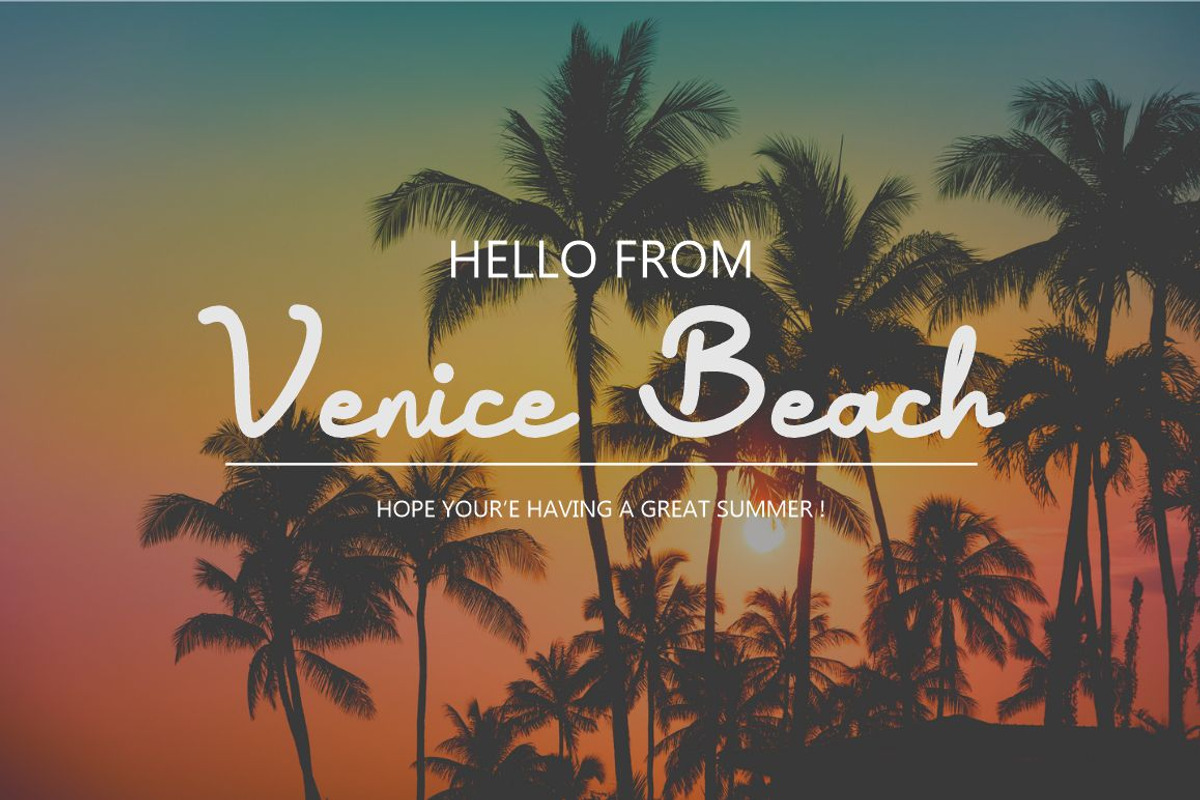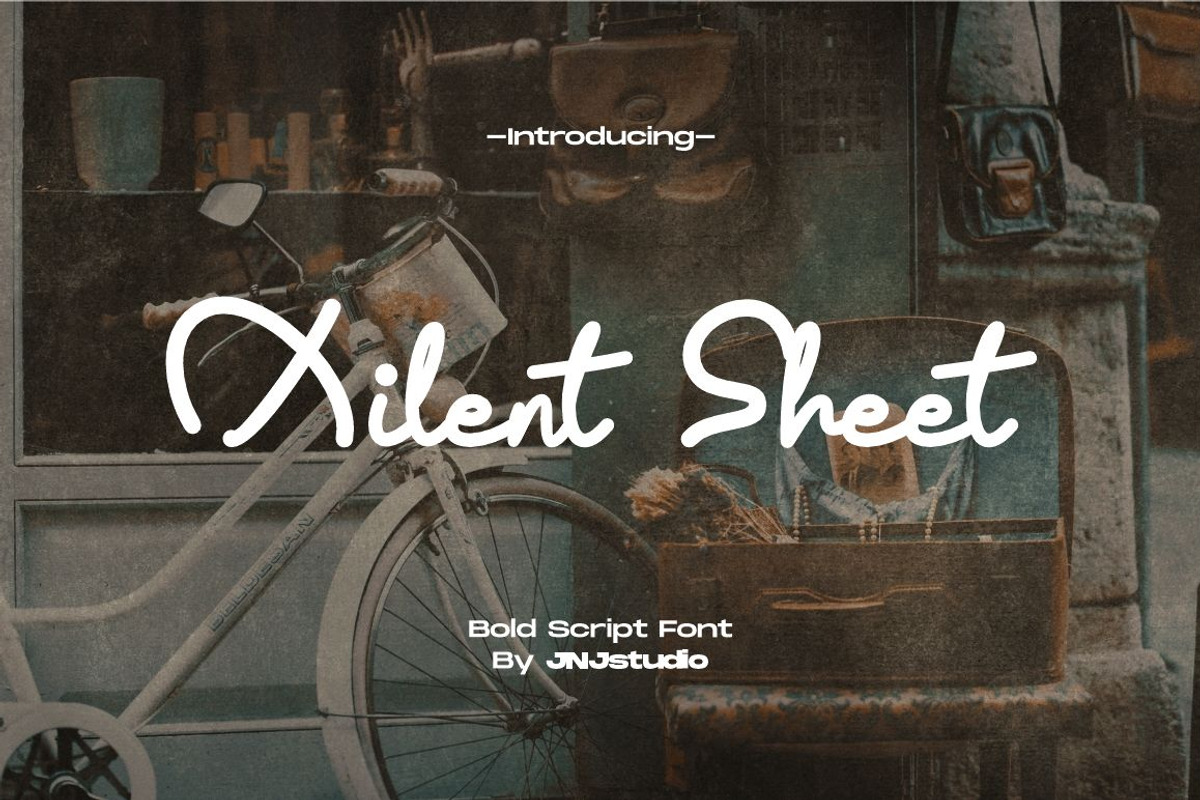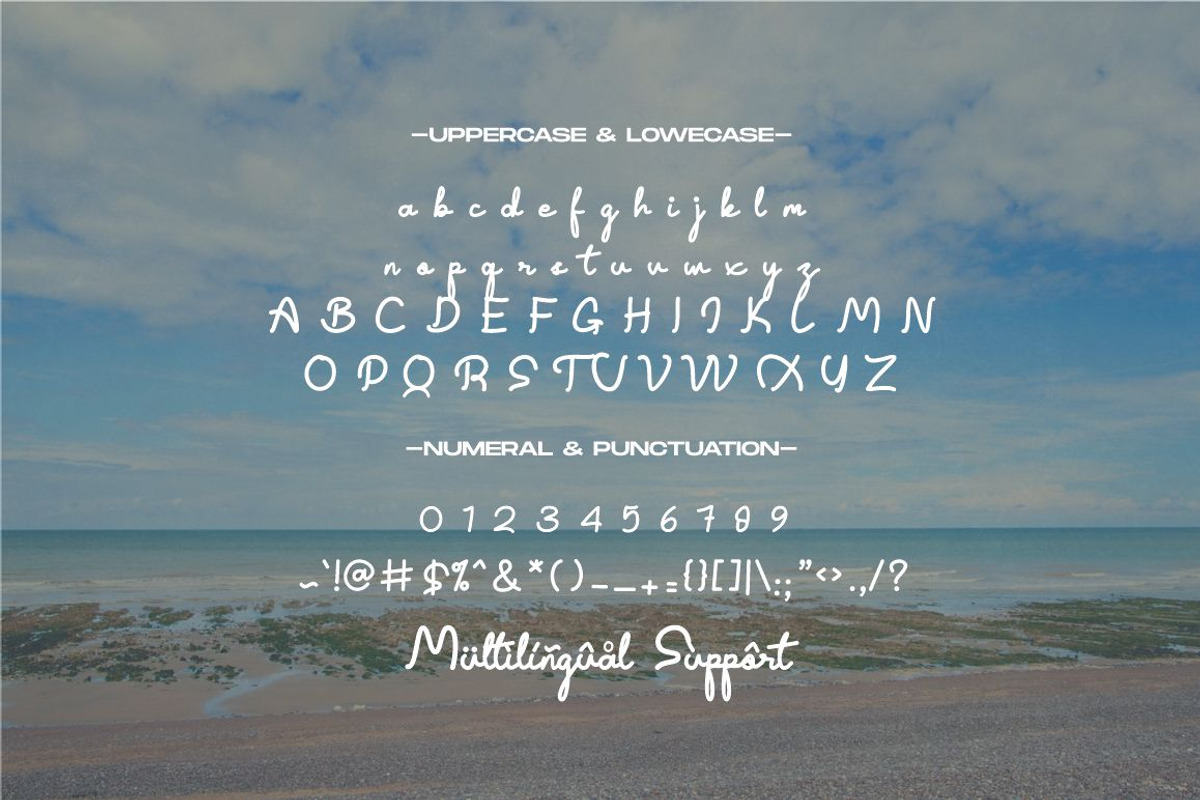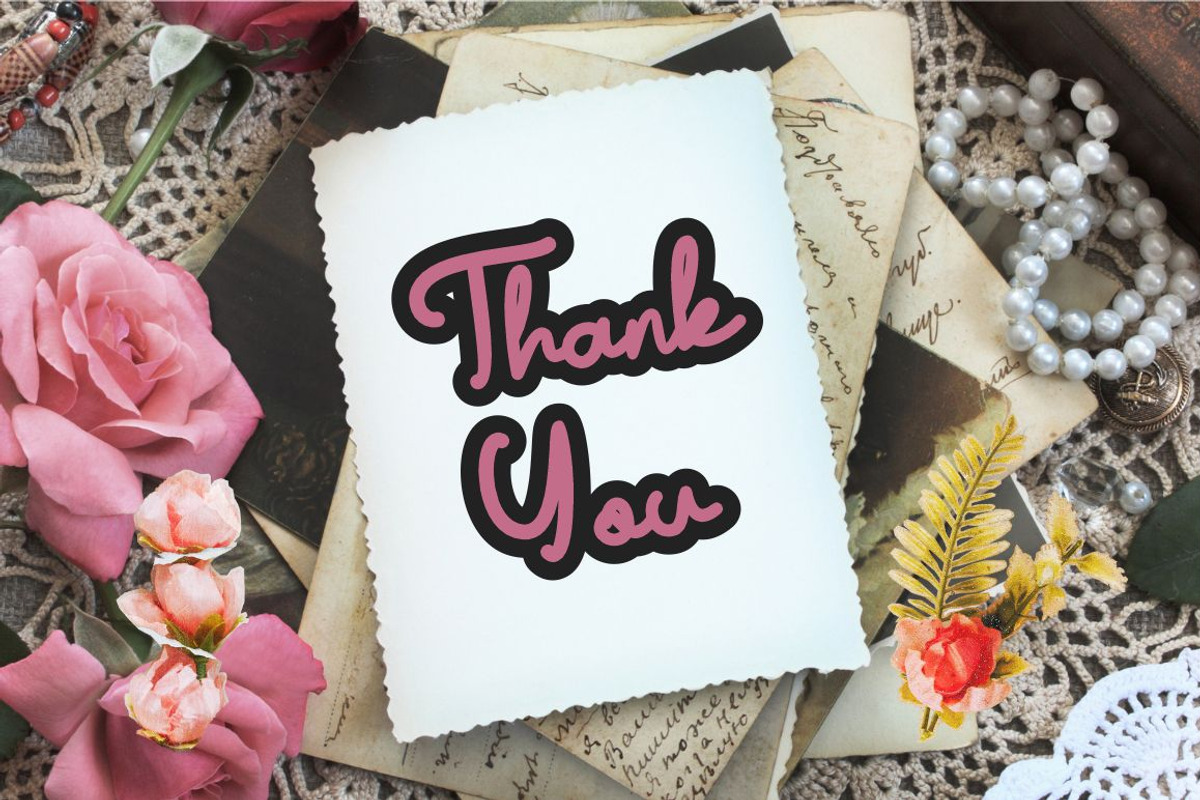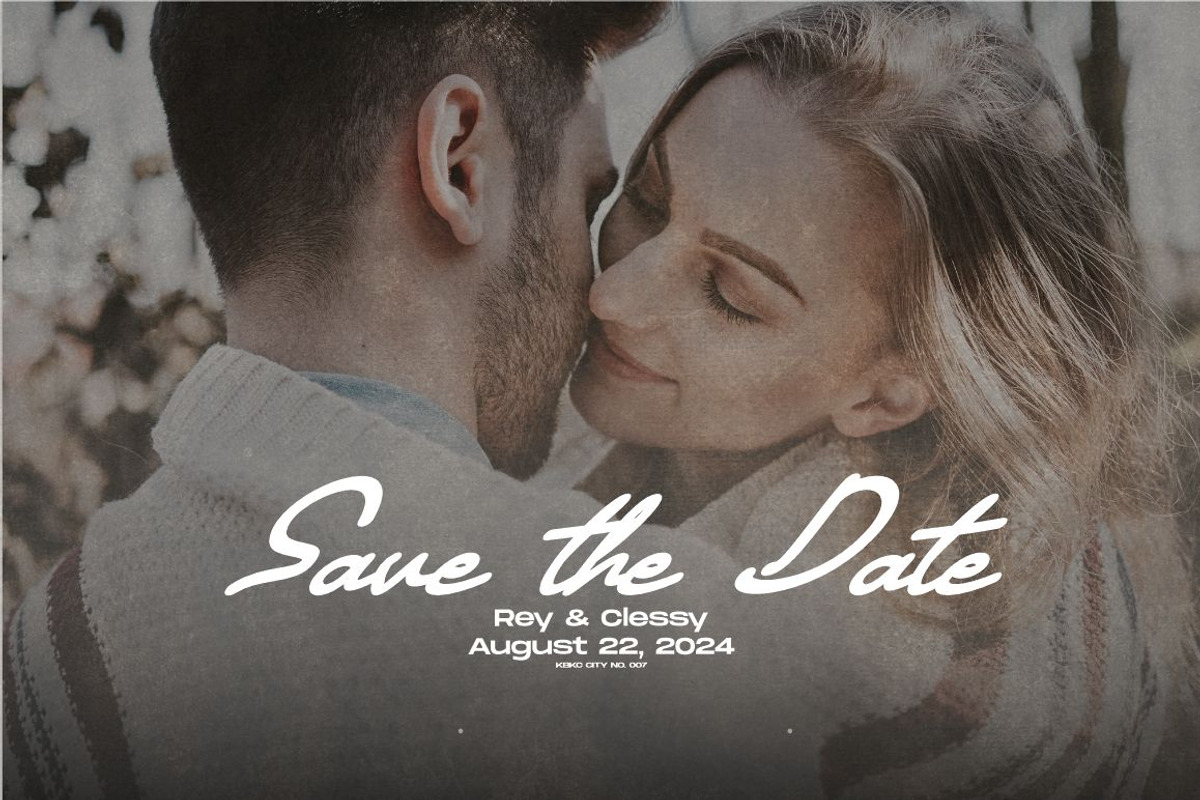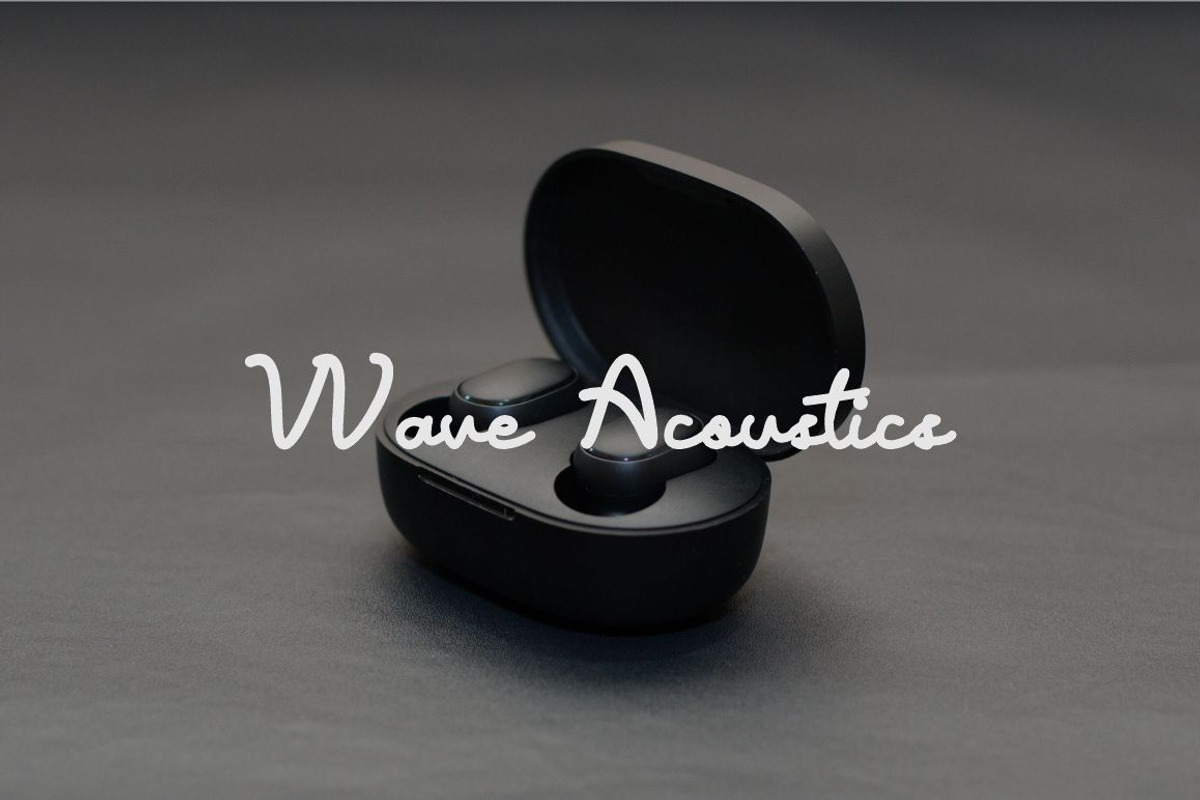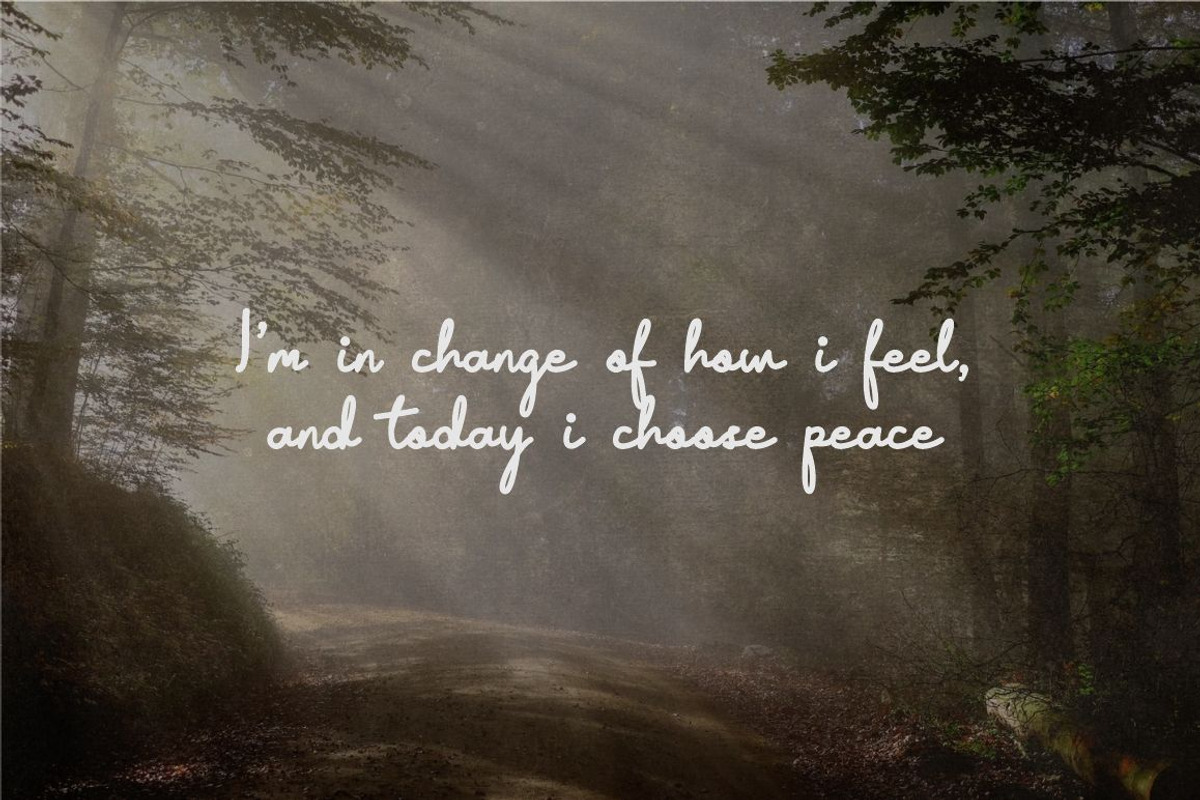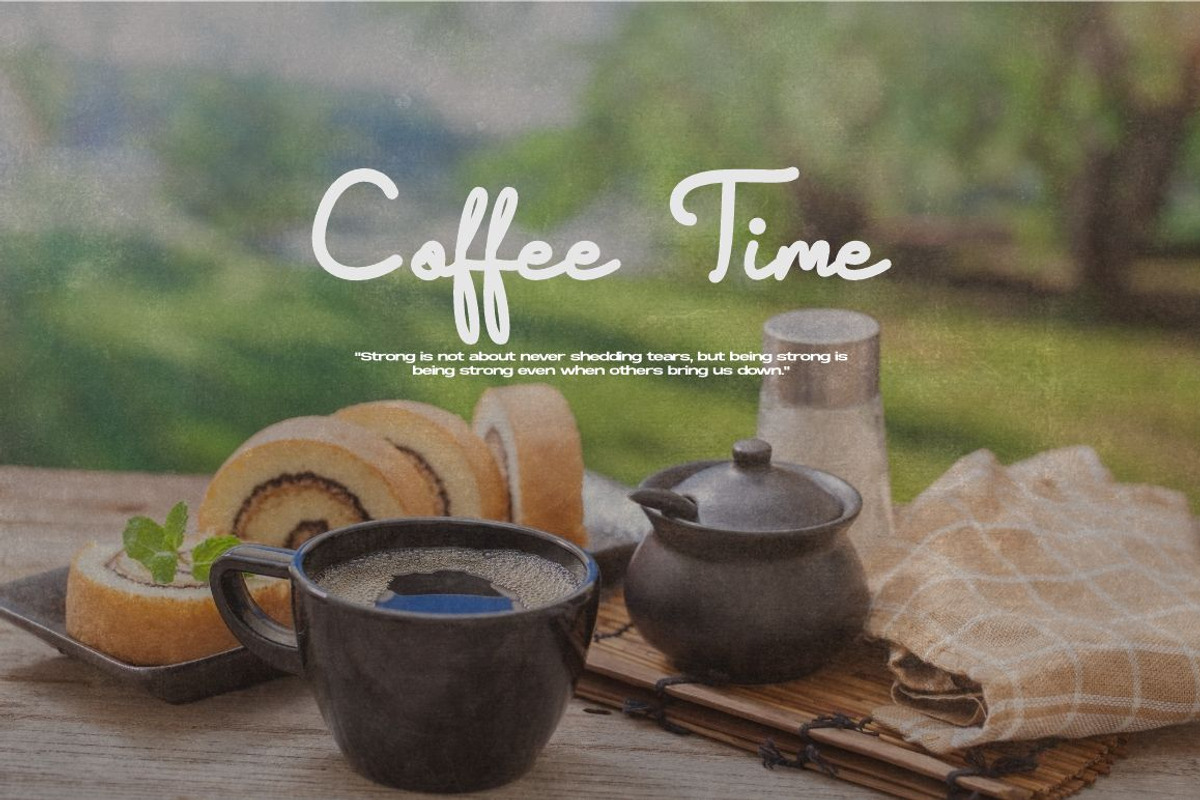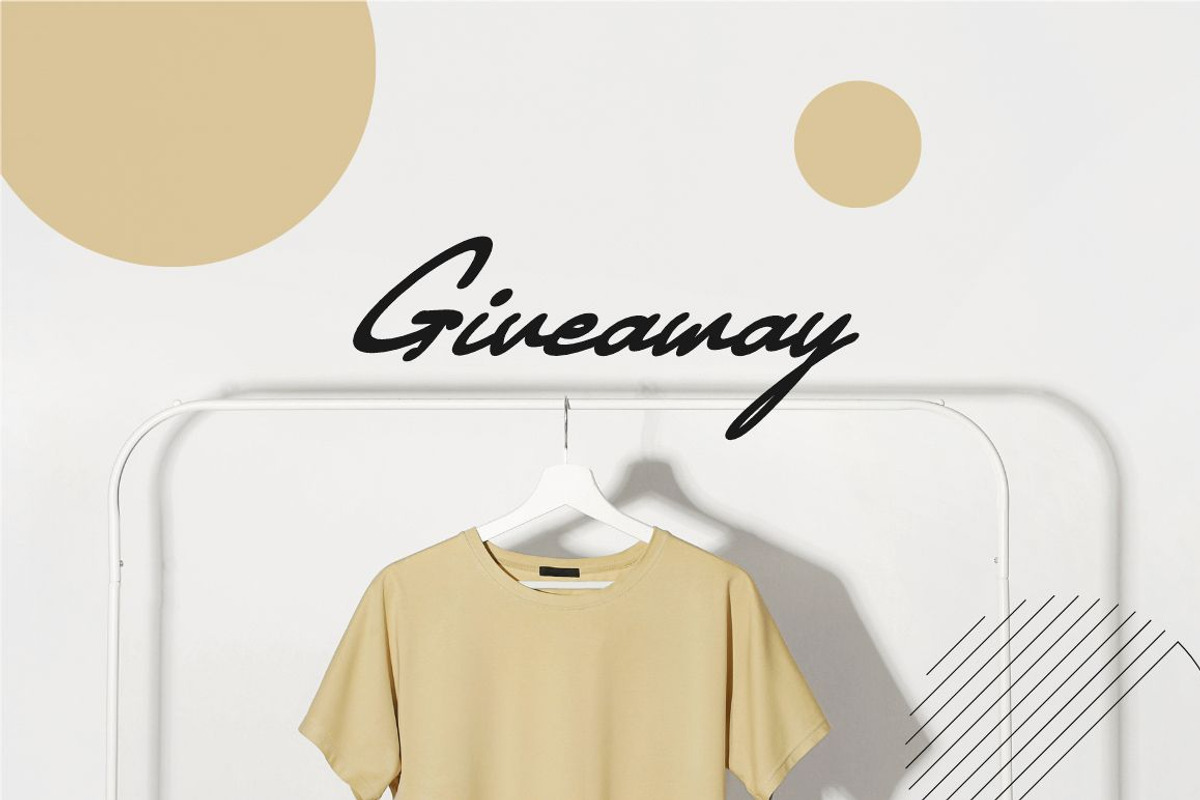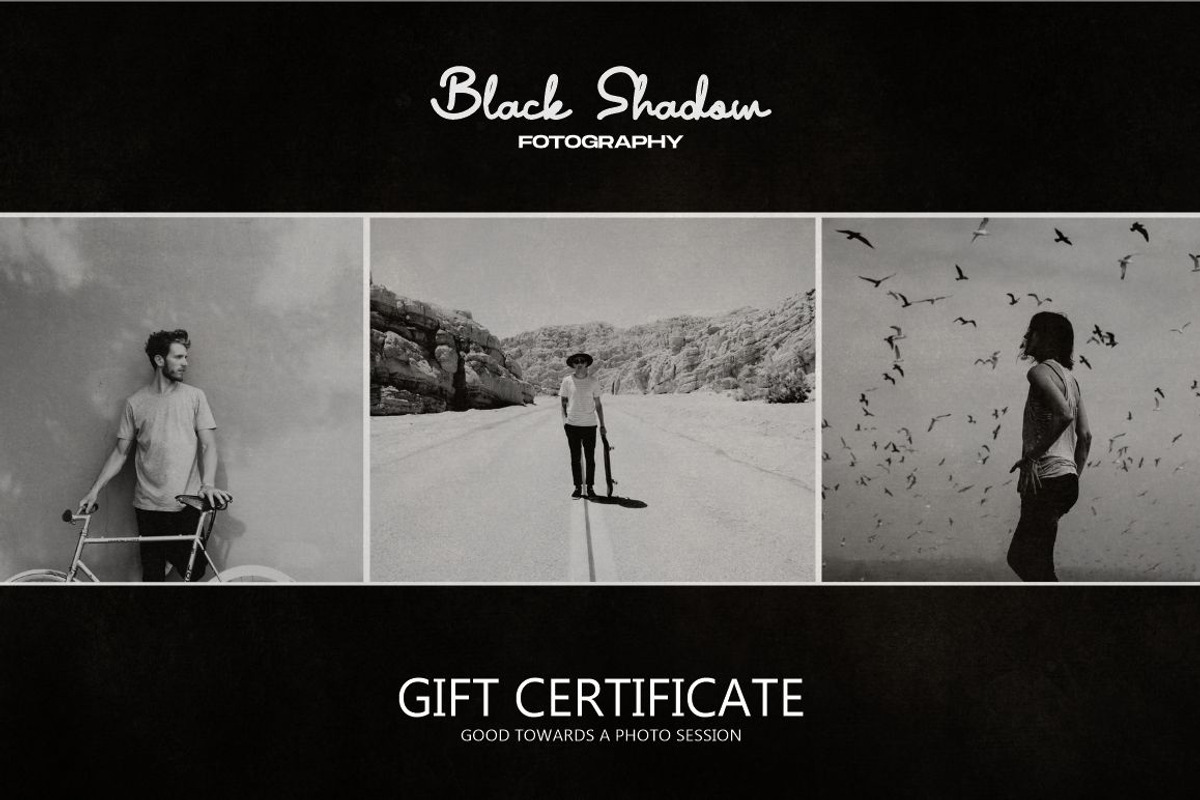
Xilent Sheet Script Font
Introducing "Xilent Sheet Font Script" is a stylish handwritten script font that exudes elegance and a personal touch. It features fluid strokes and gentle curves that mimic the natural flow of handwriting, making it perfect for projects that require a touch of authenticity and warmth. The font's carefully crafted letterforms strike a balance between casual charm and sophisticated flair, making it ideal for wedding invitations, greeting cards, branding, and more. With its smooth connections and well-proportioned characters, "Xilent Sheet Font Script" delivers readability without sacrificing the handwritten aesthetic.